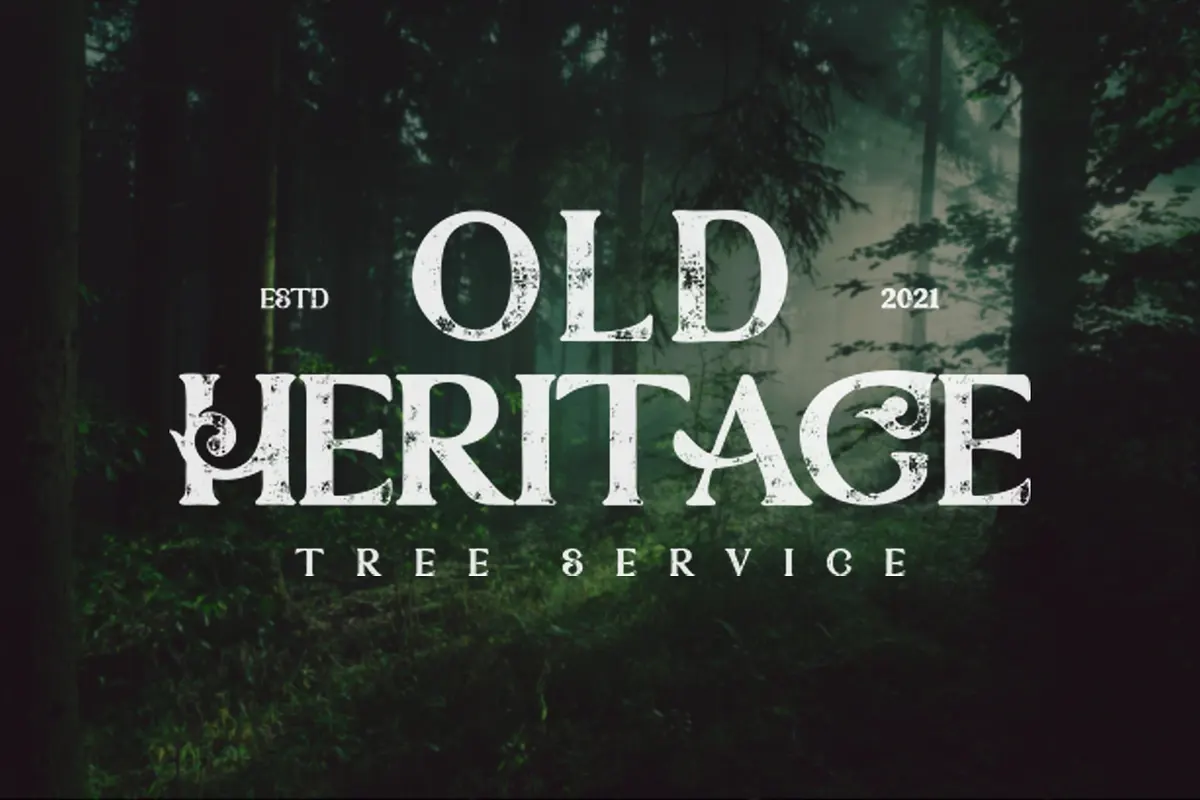
StunningOverturn Modern/Vintage Font Free Download
StunningOverturn Modern/Vintage Font Free Download is a versatile typeface that blends contemporary and retro elements, offering a unique, stylish look for a variety of design projects. With its bold, clean lines and a touch of vintage charm, this font is perfect for logos, posters, branding, packaging, and any project that demands both modern appeal and nostalgic flair.
StunningOverturn Modern/Vintage Font Free Download strikes a perfect balance between classic and modern design, making it ideal for everything from vintage-themed designs to sleek, modern branding. Whether you're working on an elegant logo or a bold headline, this font adds sophistication and timeless style.